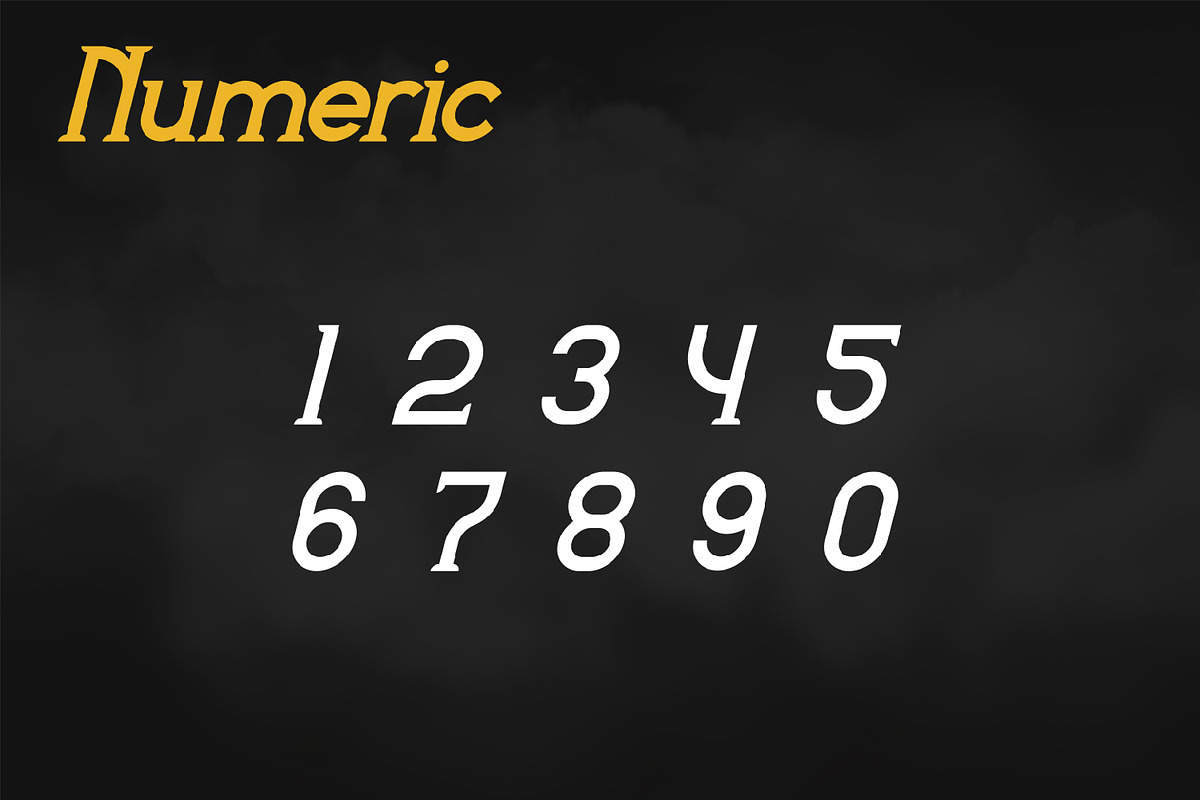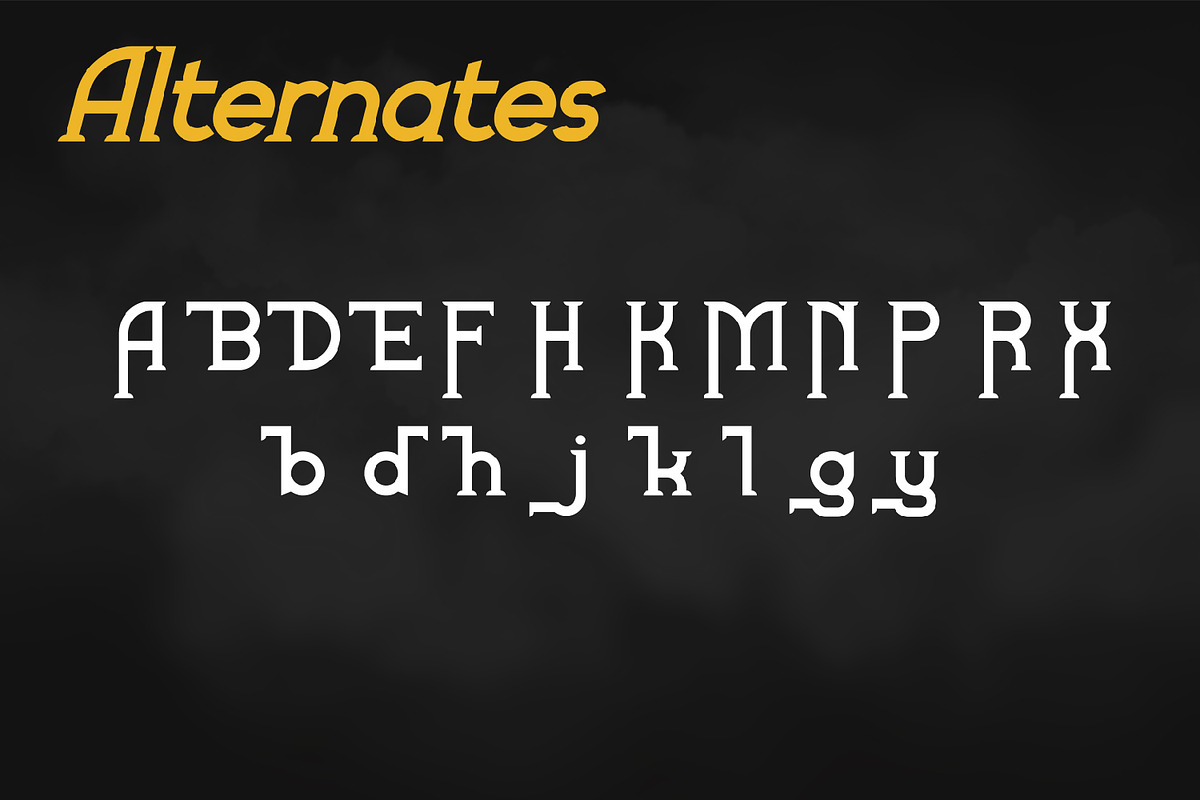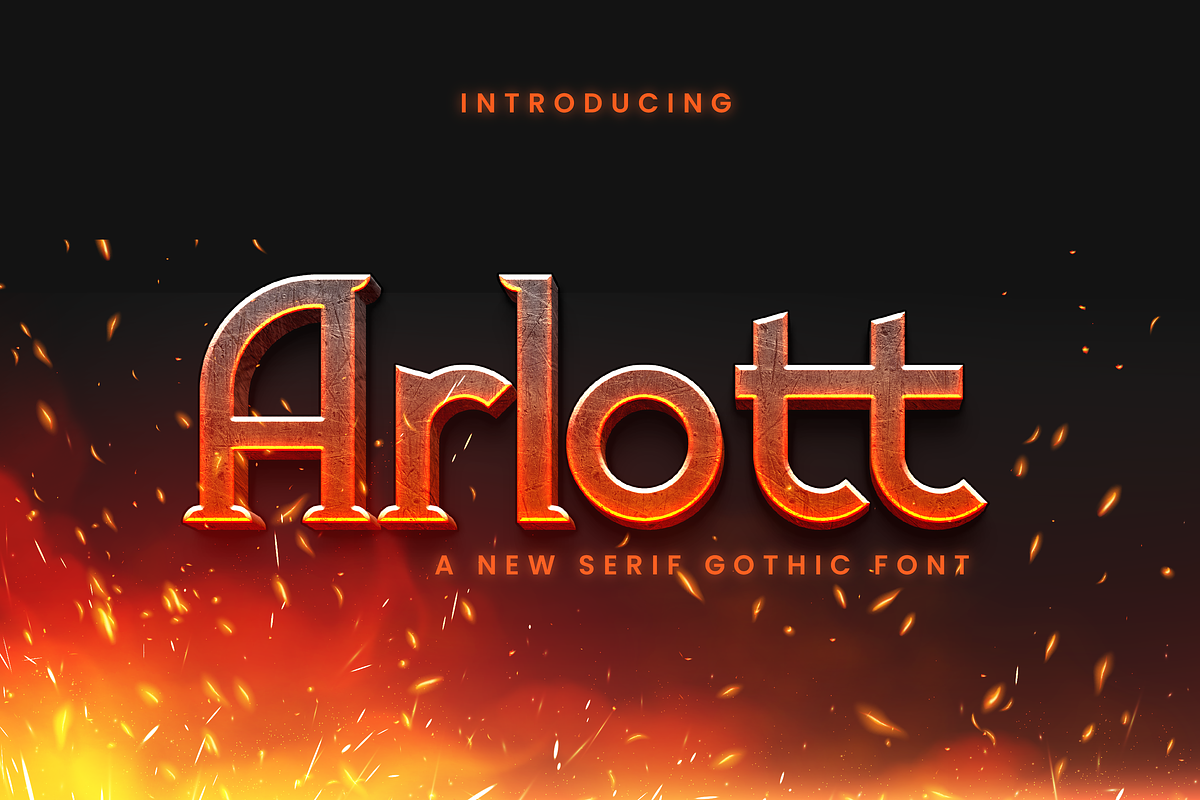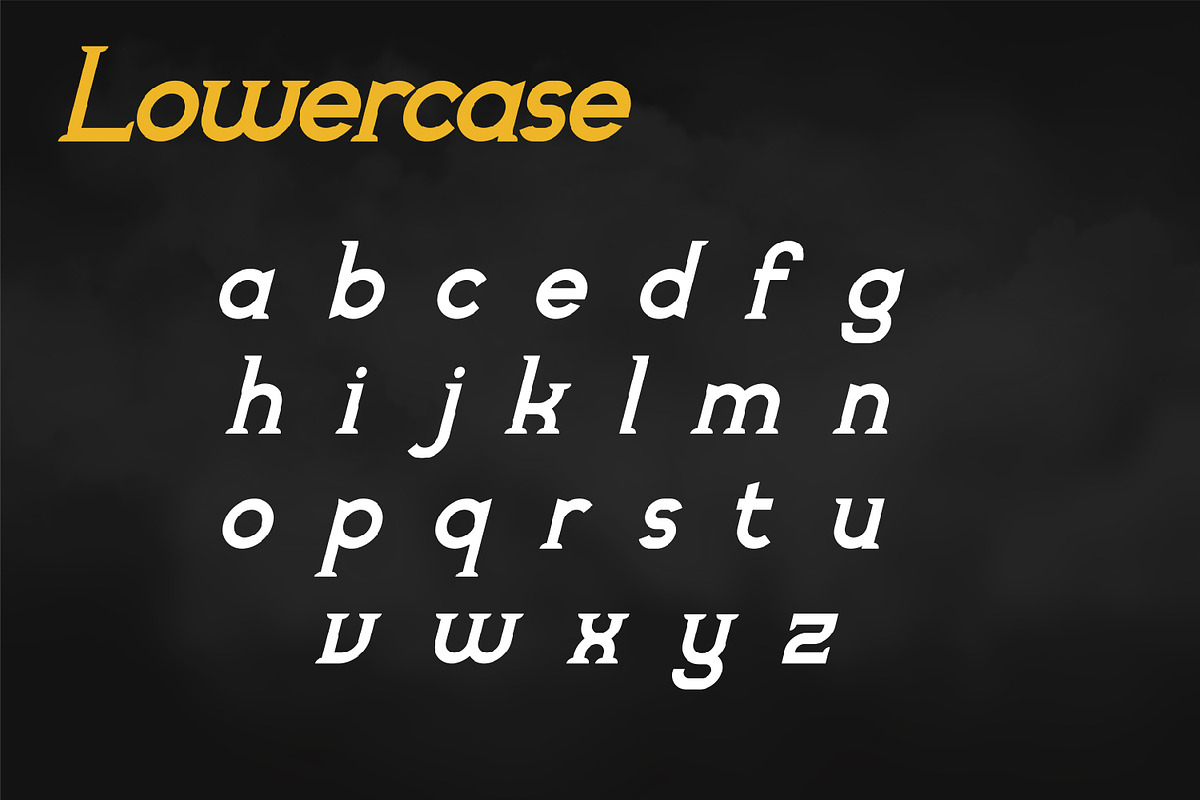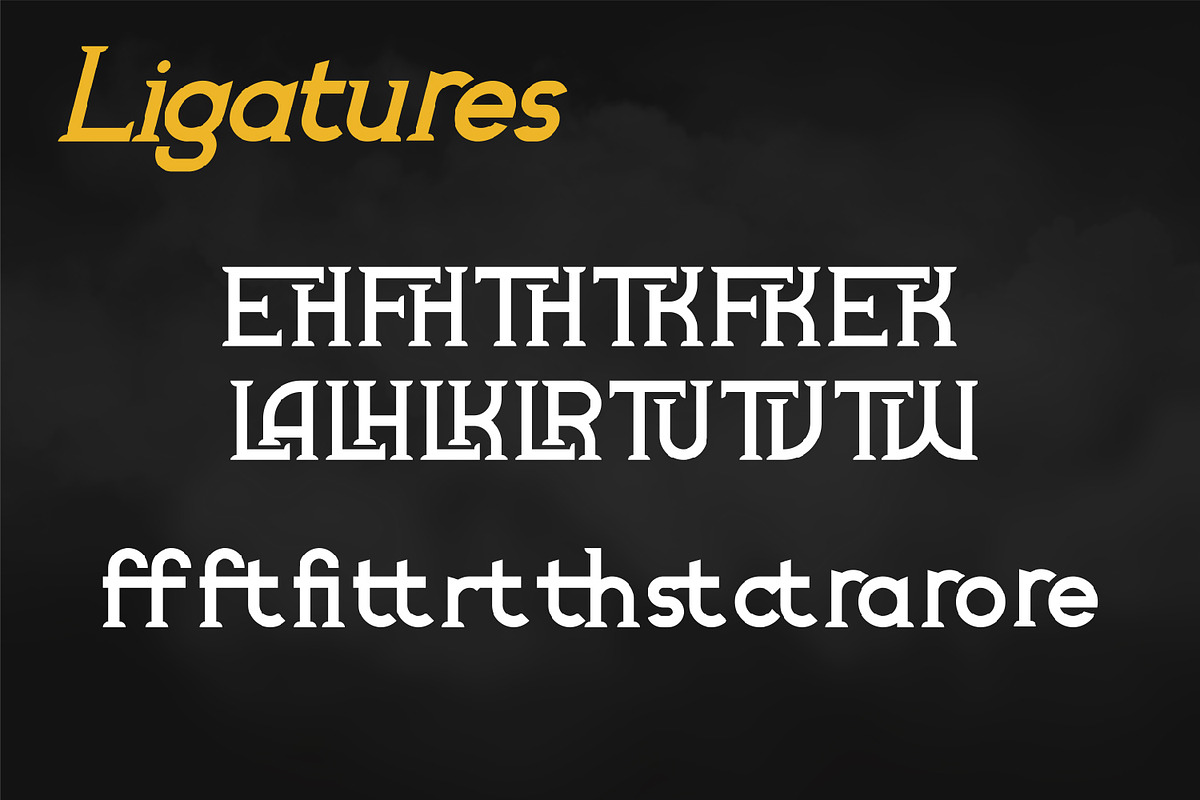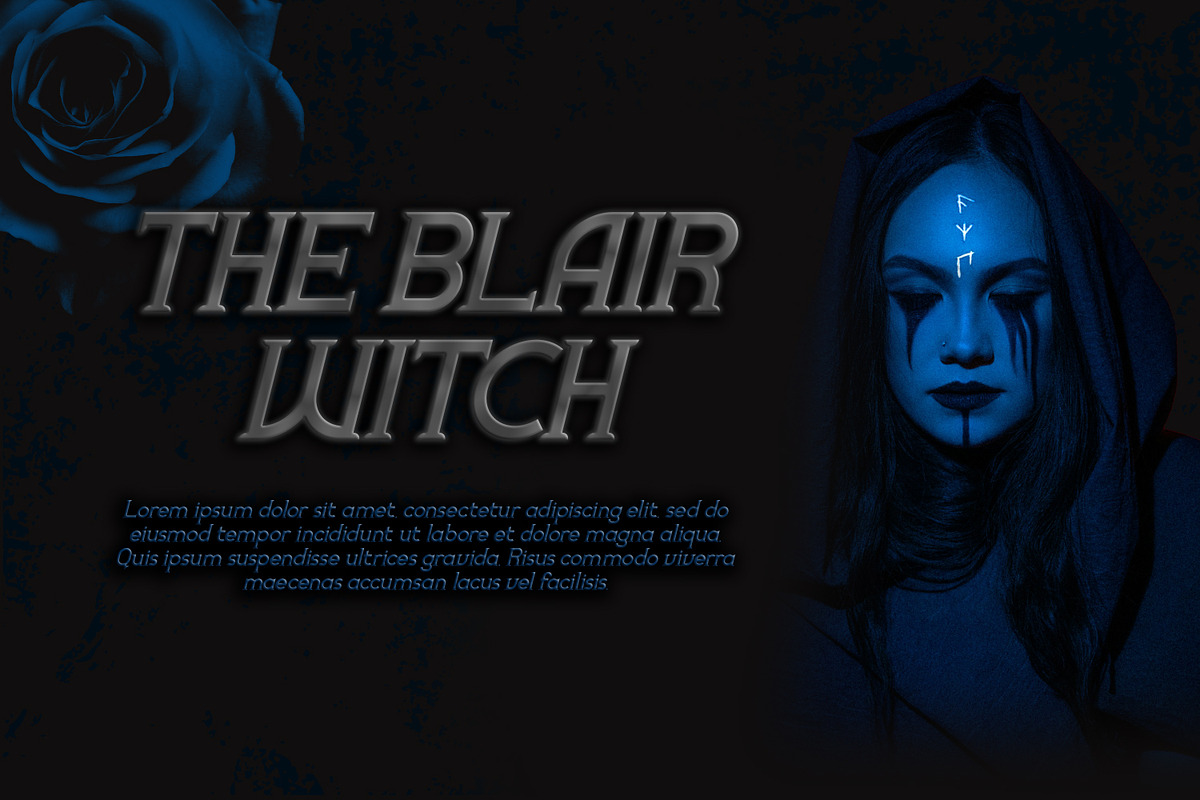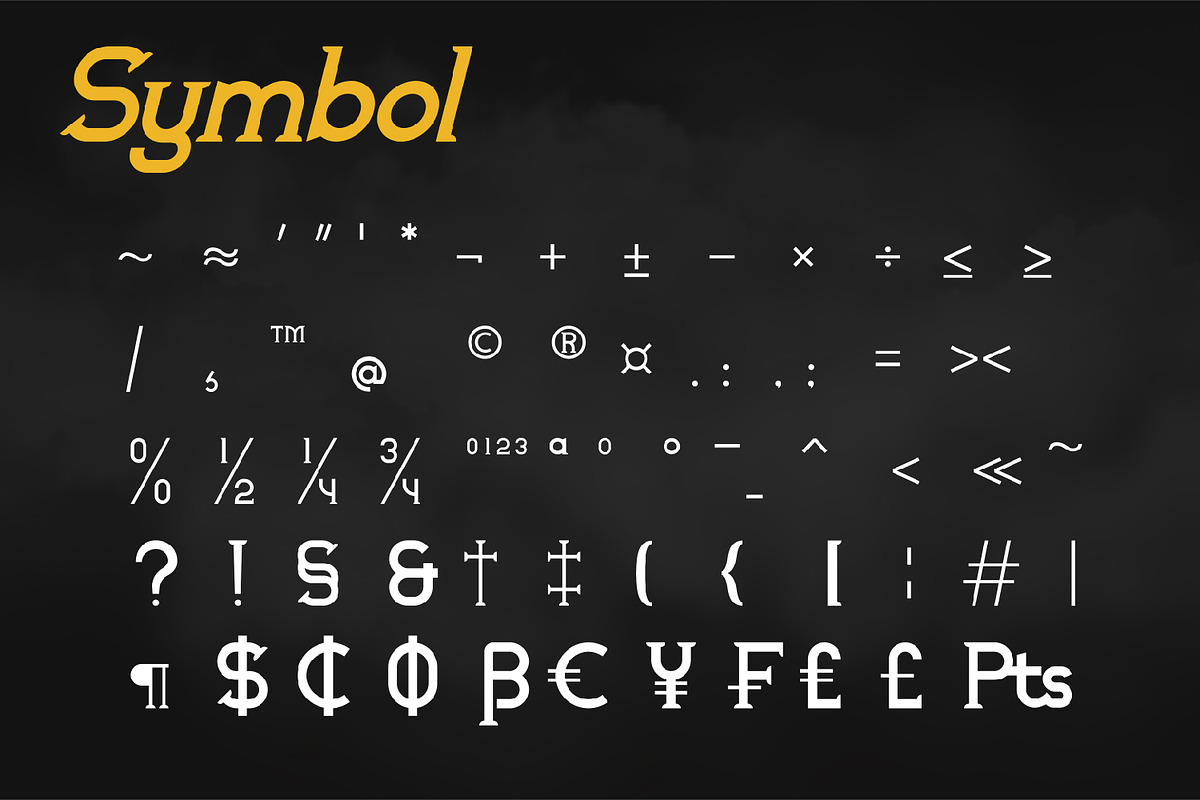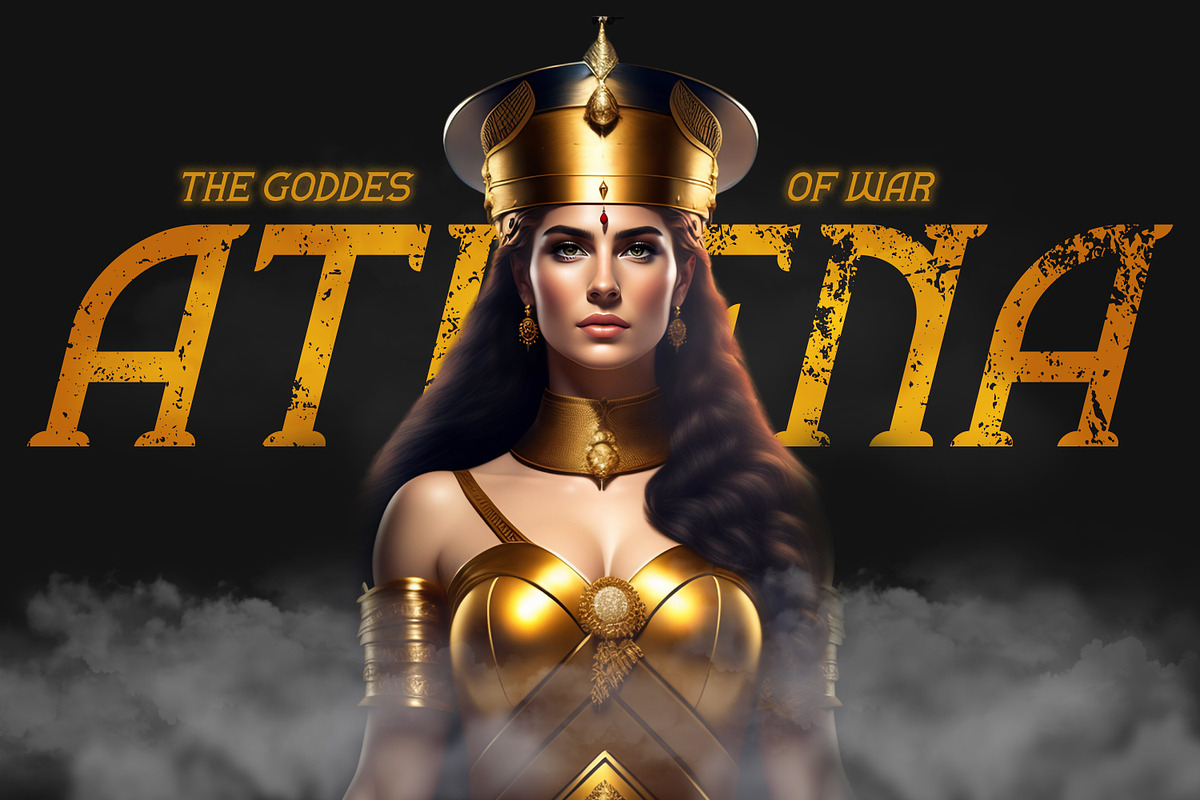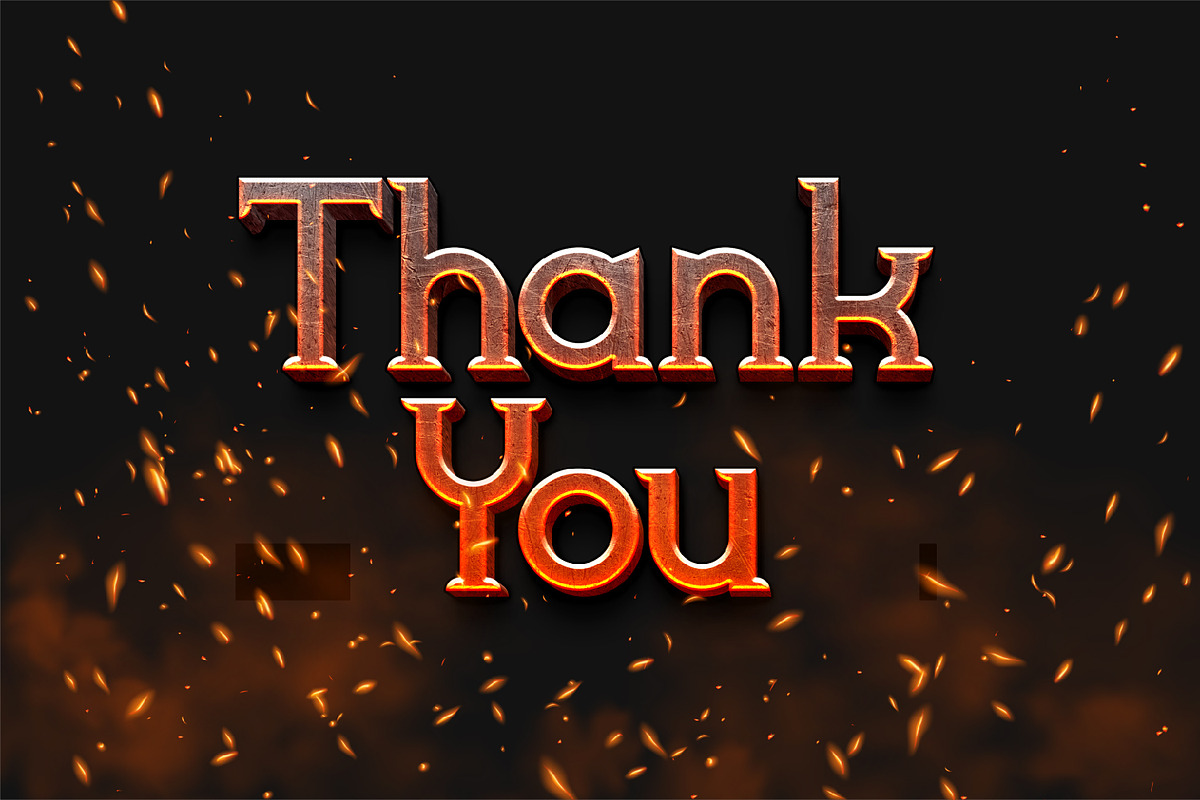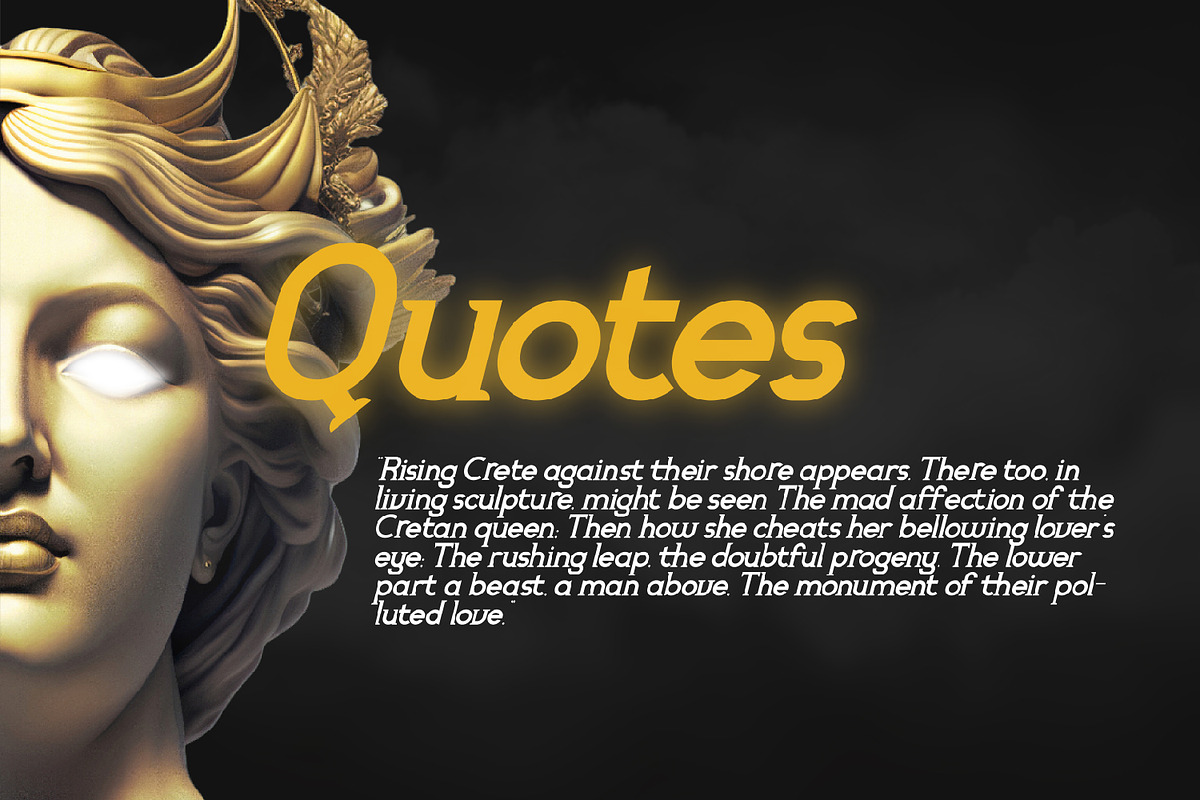
Arlott
Arlott - Modern Serif Gothic Font, from Rishsketch Studios, is a premium Serif Font, perfect for any project that requires a distinctive, and premium feel.
Ligature, Alternate & Multilingu